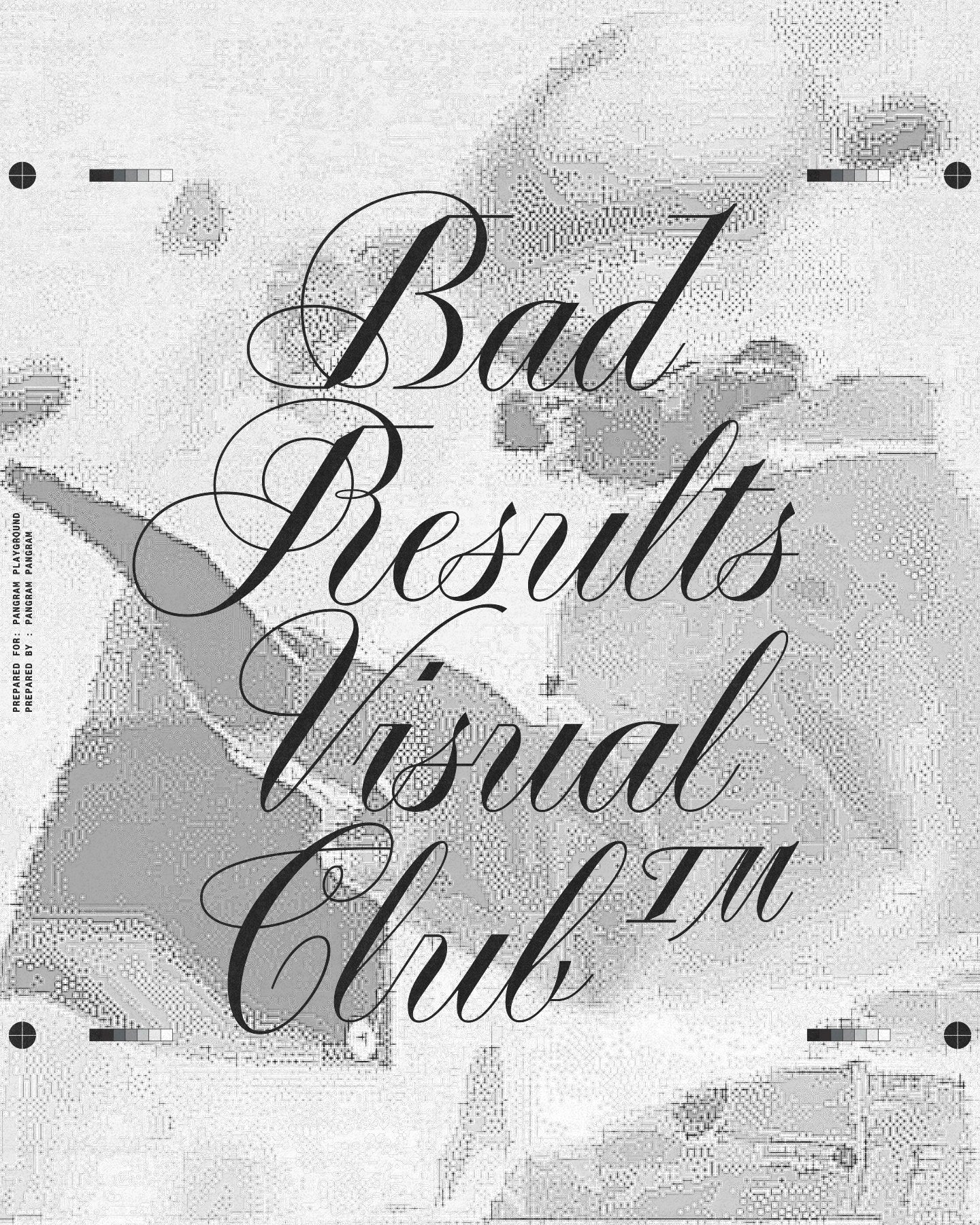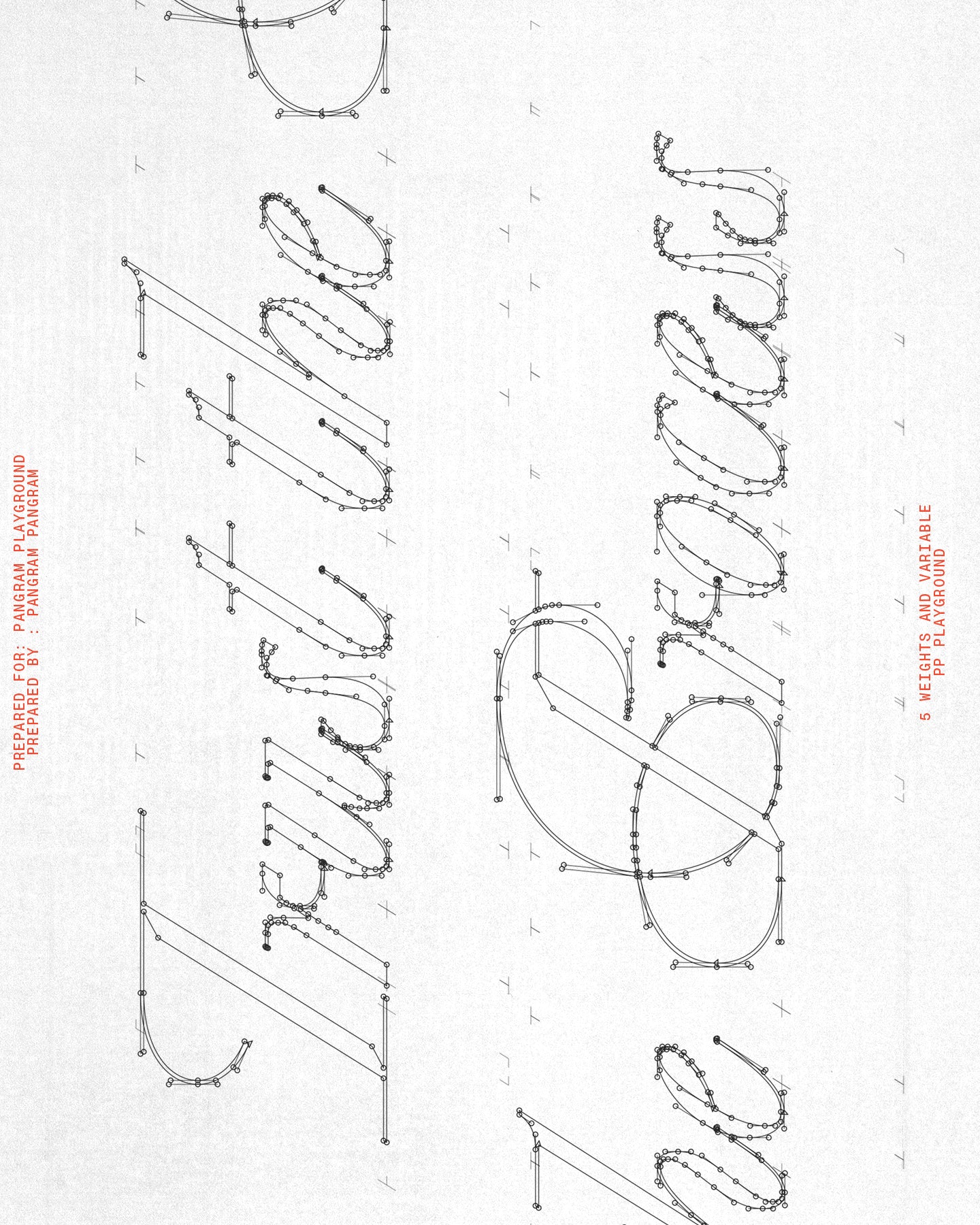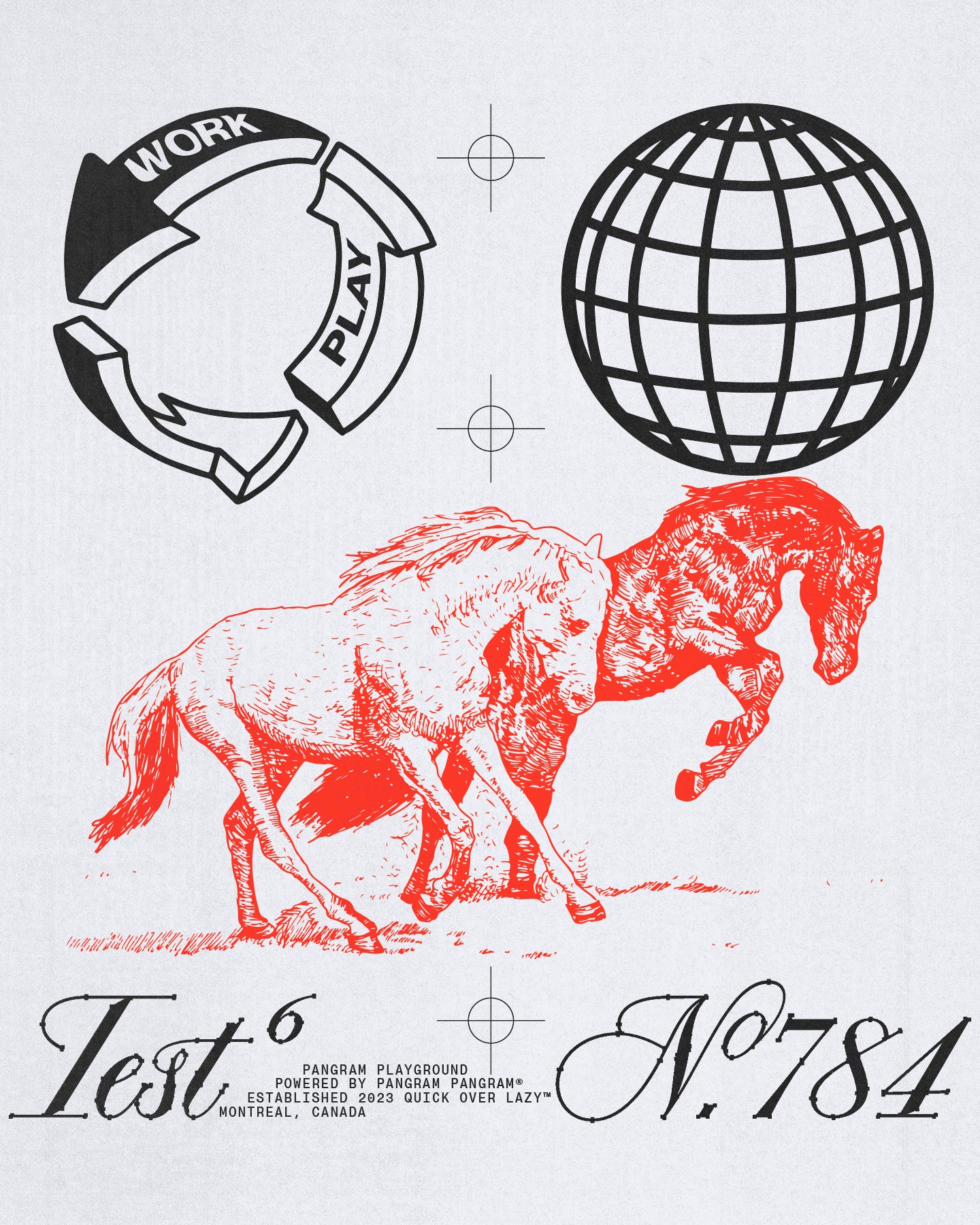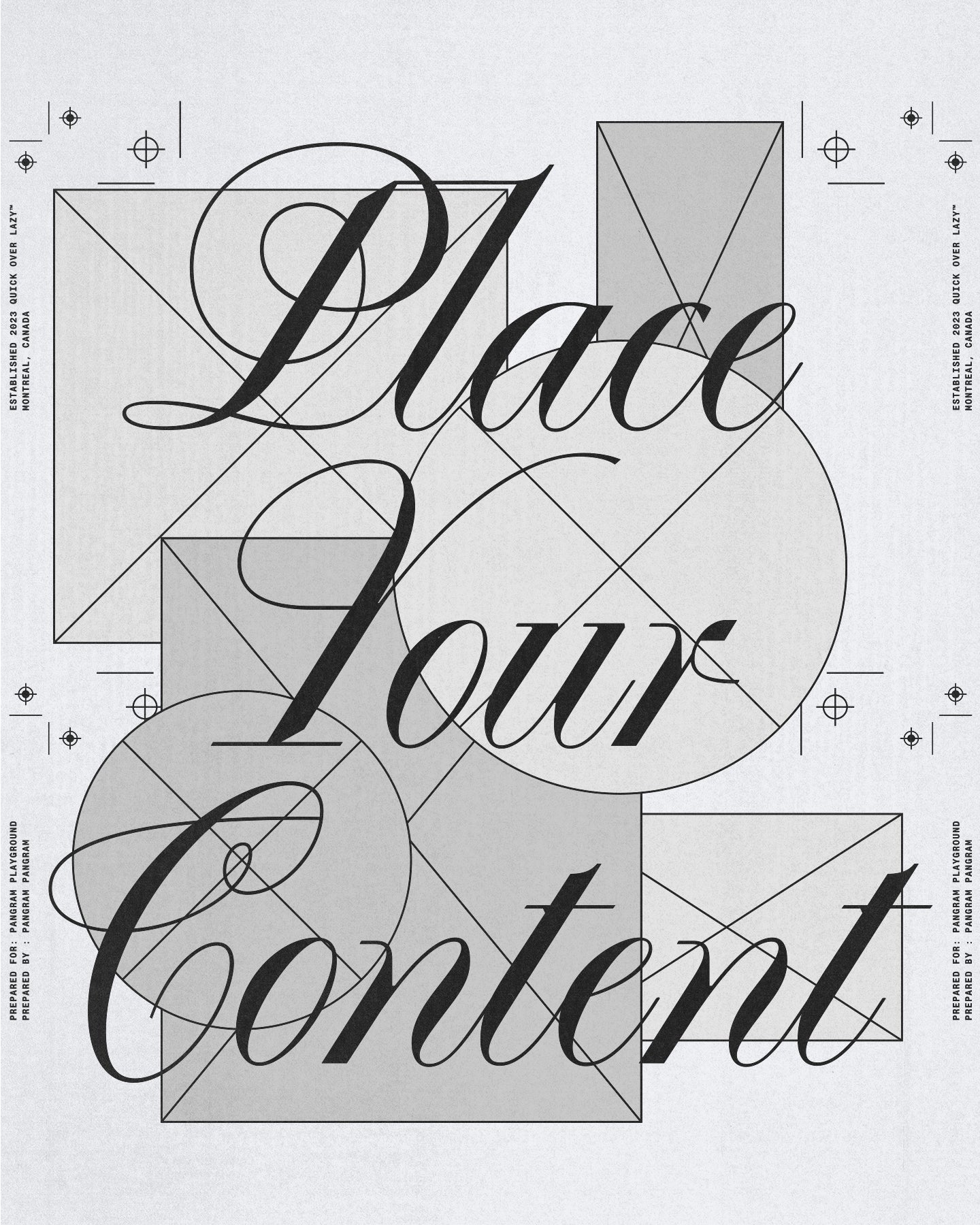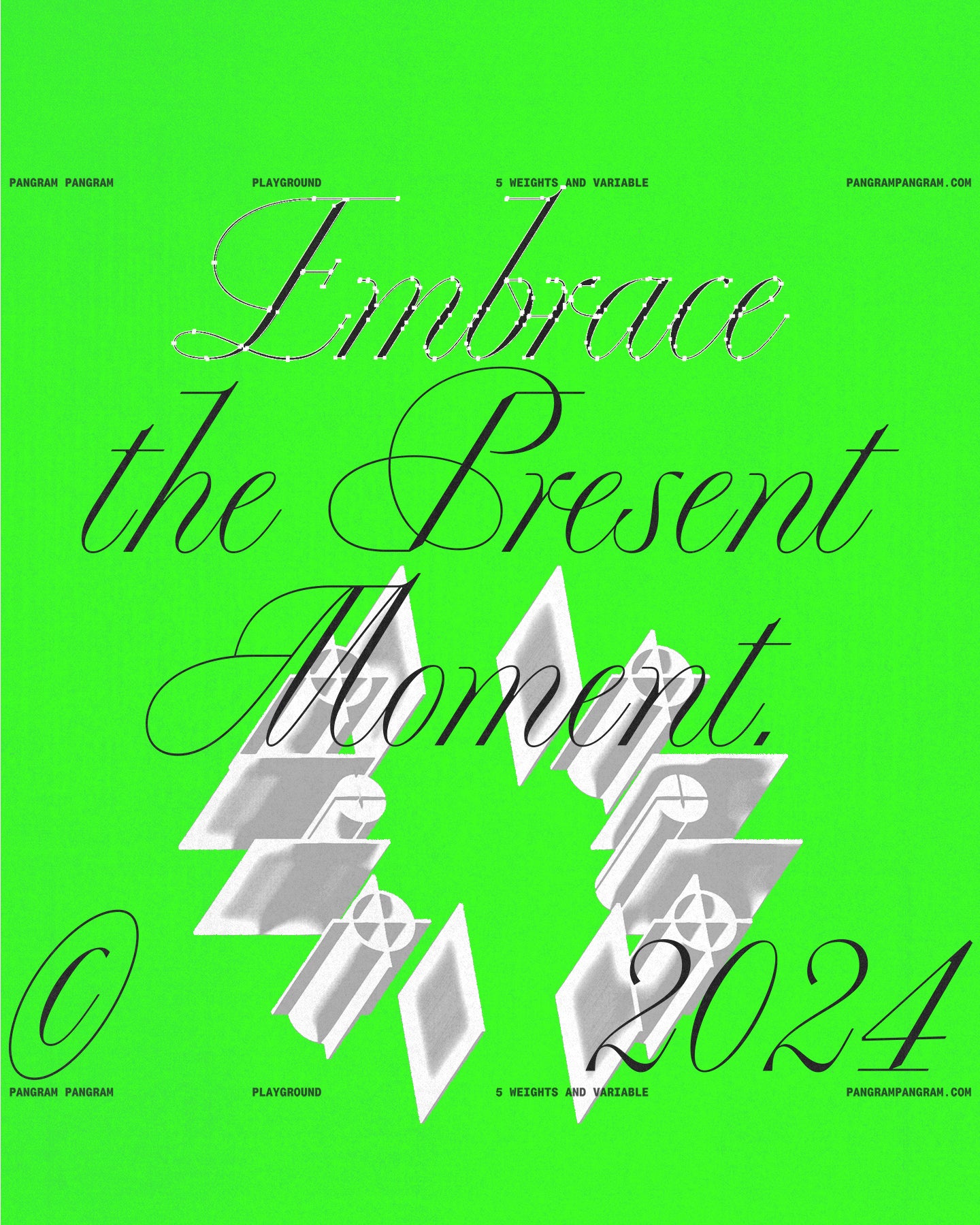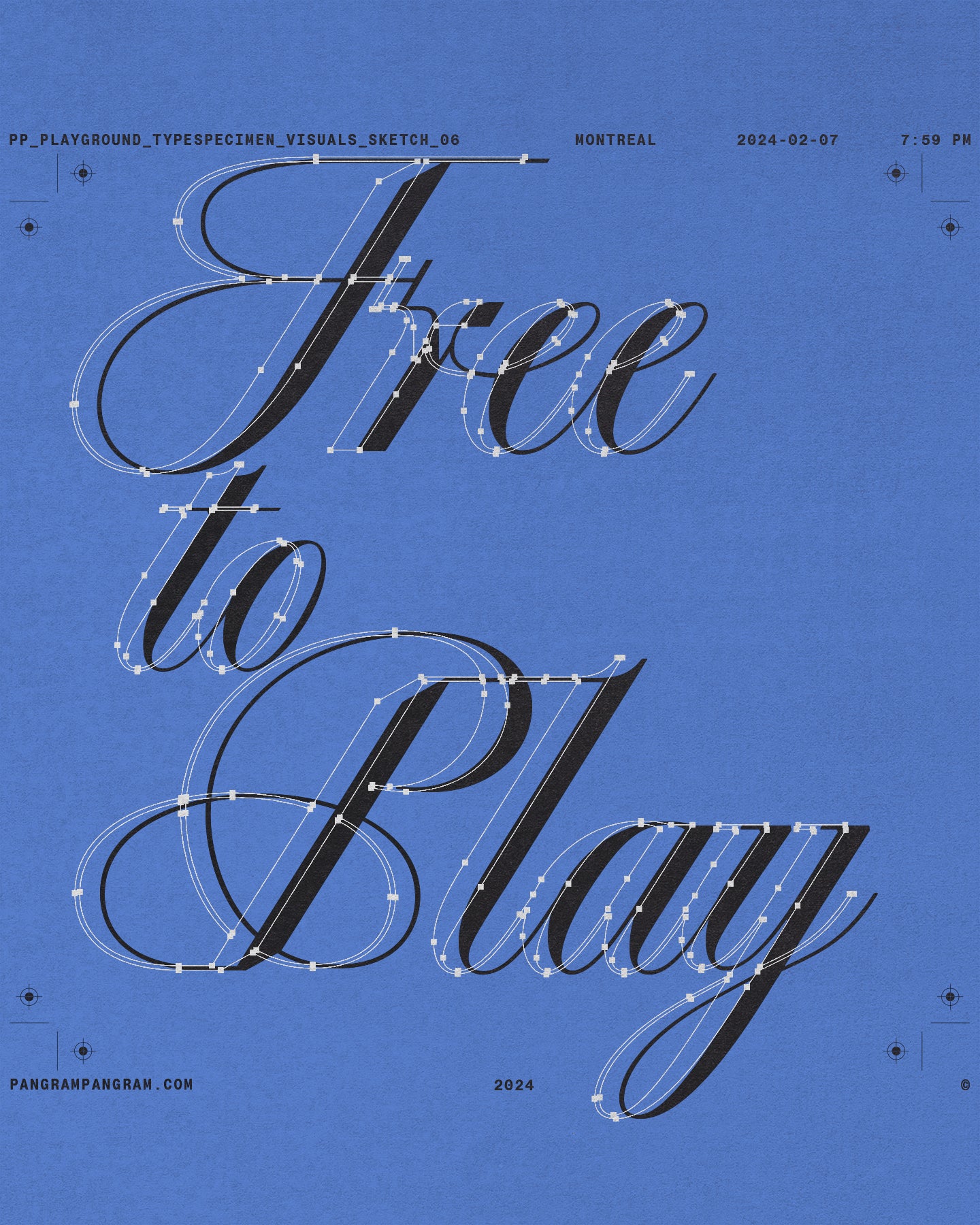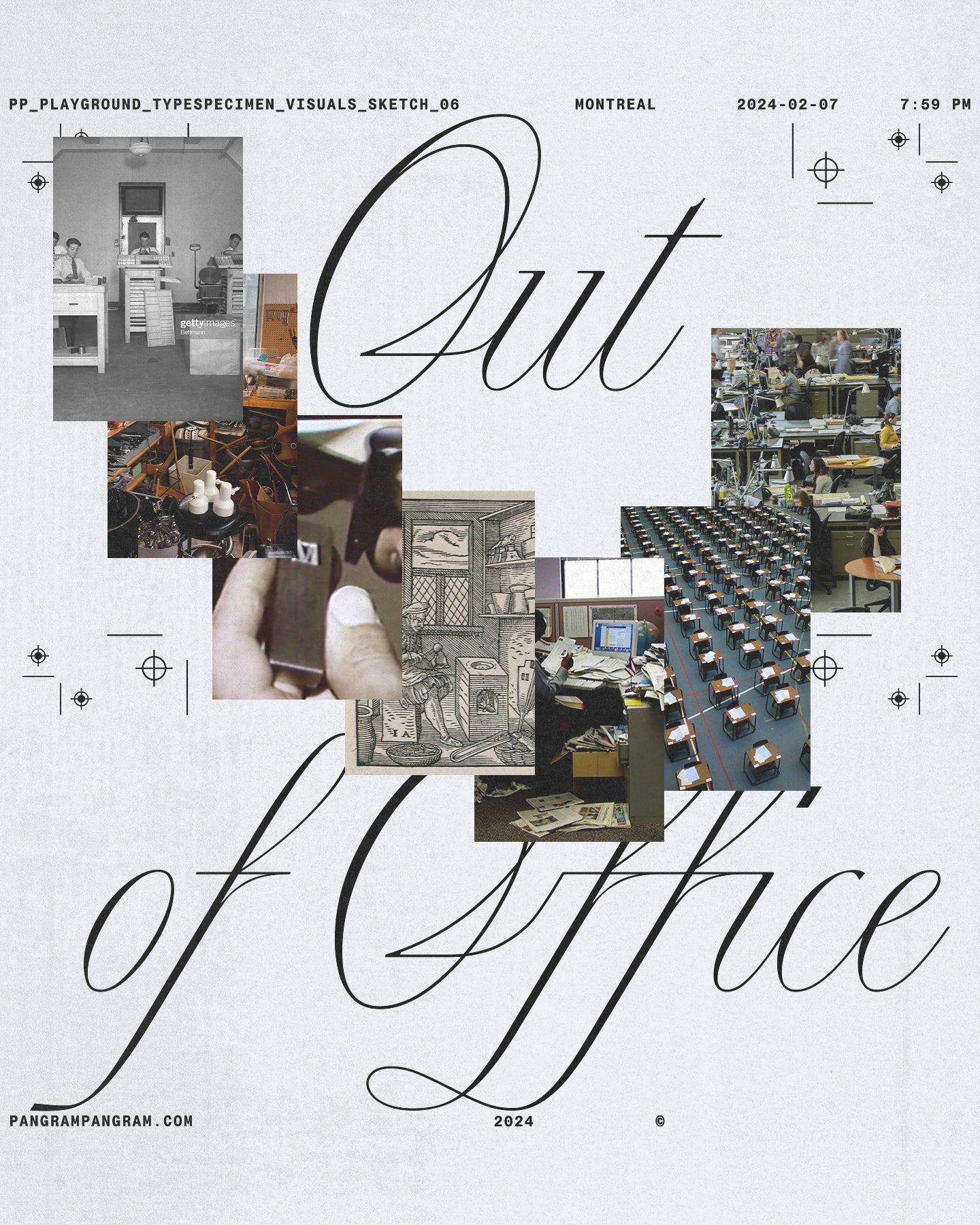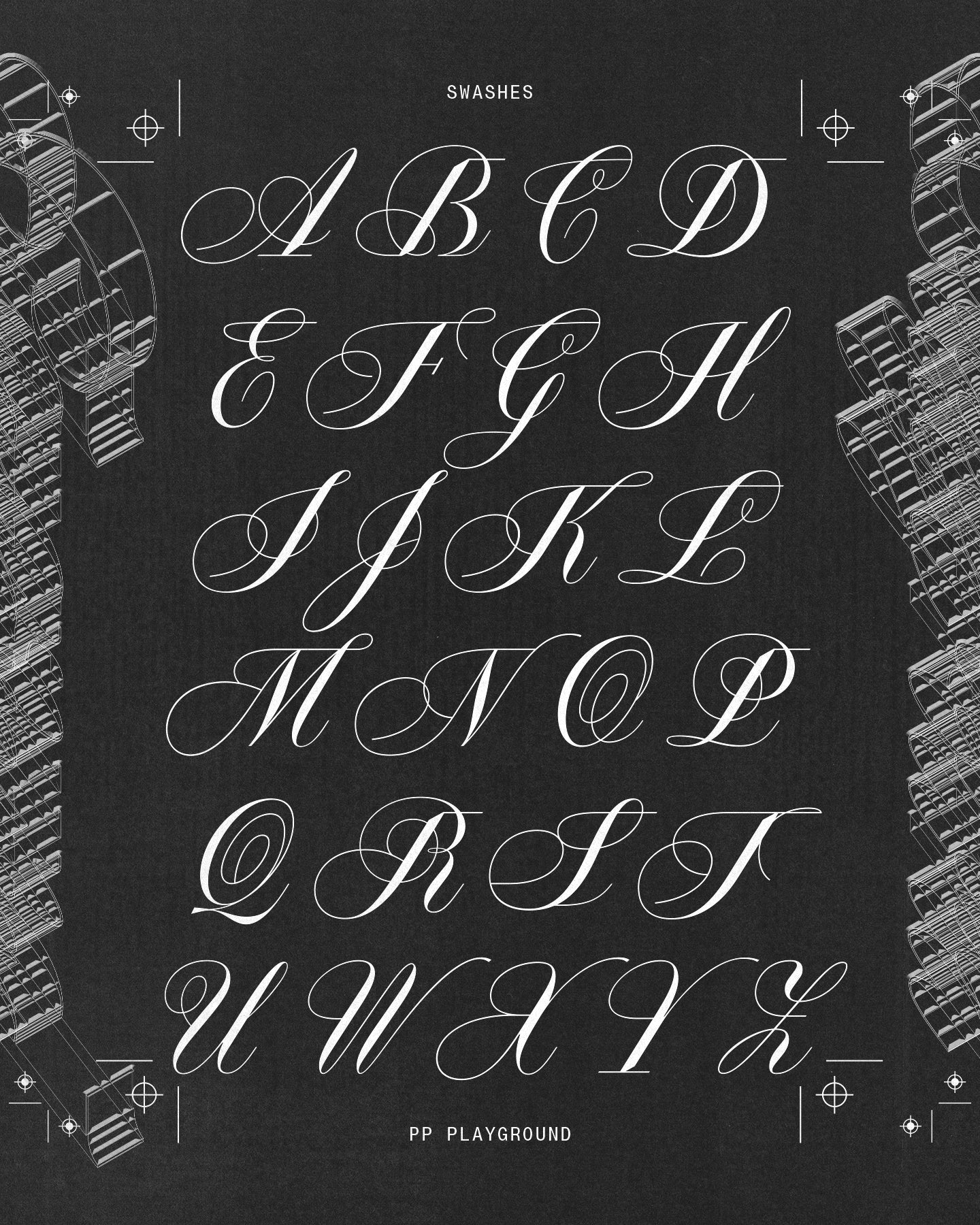
Playground
Classical copperplate calligraphic style.
Play is the Highest Form of Research. From its typographic origins, defined by meticulous attention to detail and practical rigour, Pangram Playground emerges.
Effortlessly combining the worlds of work and play into a space entirely new. We’re proudly defined by the notion, ‘play is the highest form of research,’ an enduring maxim leading Pangram Playground into as-yet-untraversed, uncharted ground. Shaping wonderfully unexpected, normal-redefining landscapes. Crafted by designers, for designers, what we do and what we make go far beyond the purely aesthetic, dedicated to producing something purposeful and powerful. Challenging the graphic, industrial, and fashion landscapes. Simplicity is where we plant our flag, channelling the age-old adage that ‘design is thinking made visible,’ a principle we profoundly stand by, an adage we meticulously weave into each and every curated piece. Seamlessly combining audacity and clarity, celebrating the purity of purpose. Forging experiences, not just objects. We throw out the notion of mistakes, tripping up, and travelling down the wrong path. We propose a different perspective. A playground, on which to play, fall over and freely experiment. It is in these moments of creative exploration that we find purpose, interest, and intrigue. Discovering the seeds of what-ifs and what-coulds. Born from a playful, curious dance.
Playground is variable
Playground's Features
Connecting Glyphs
klmnopy
Alternate b o p s
b o p s
Alternate Set
E J O Q S Z b d f k v w x z
Alternate set 2
A F L T S s
Alternate g
g
→
g
Alternate p
p
→
p
Alternate Numbers
012358
→
012358
Alternate &?
&?
→
&?
Alternate 08
08
→
08
Swashes
ABC
→
ABC
Where Elegance Plays.
Born from the research that went into the creation of Pangram Playground. PP Playground is a contemporary script, a reinterpretation of the classical copperplate calligraphic style, composed initially with the pointed nib pen. The shapes of Playground font came to life at the intersection of the pen’s logical rhythm, the rich historical calligraphic references, and the precise geometrical construction of the letters.
This creative process serves the Playground world, where the seriousness of work is questioned by the necessity of experiment and play to continue to inspire. The elegance of the copperplate script is interrupted by unexpected shapes. We wanted to create surprising tensions from exaggerated contrast and thin horizontal lines. Square forms melted with flourishing curves, and acute cuts and round shoulders were used.
The Playground font set includes a semi-connected script, where not all letters are joined. However, the complete cursive connection can be achieved by using the contextual alternates feature. Additionally, two sets of capital letters are available. The first set is closer to italic capitals, while the second set includes swashes for a more calligraphic and expressive variation.
The script has 5 weights. Lighter weights are suitable for display sizes, and darker weights are safe for smaller sizes.